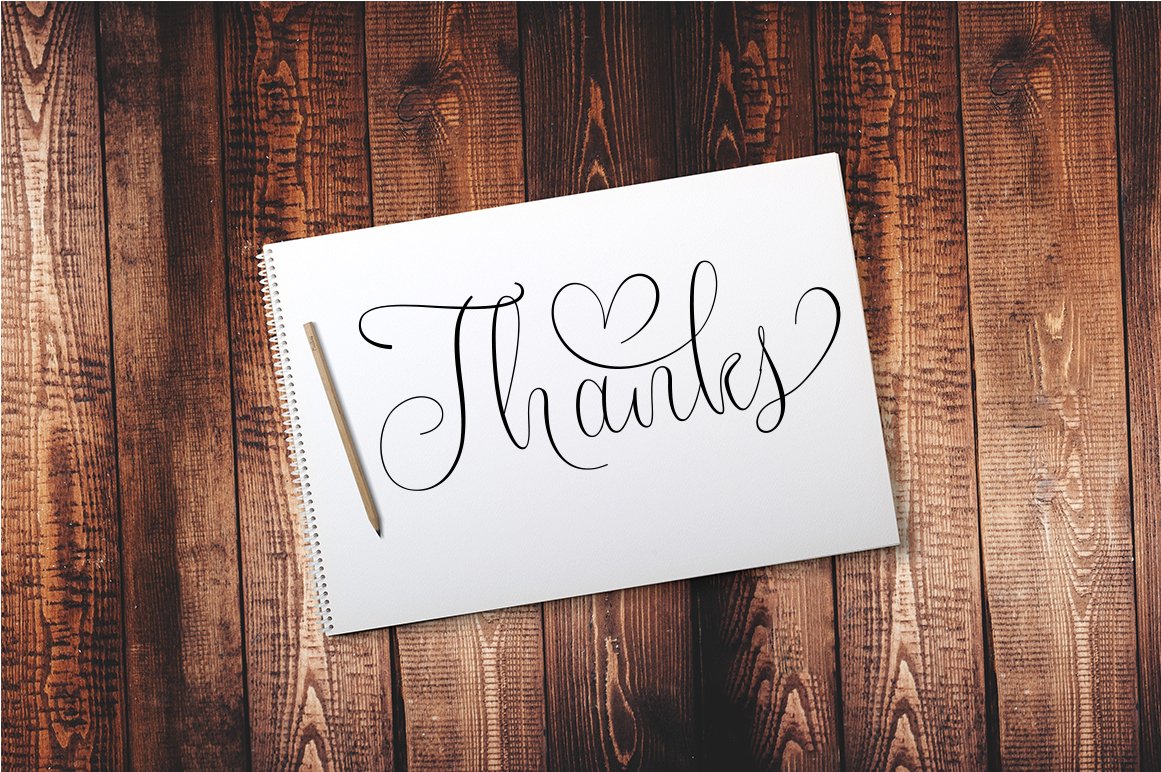
Creativefabrica Yolanda Script Font SVG File. Yolanda script font the premium fonts, but now it is free at thehungryjpeg. Yolanda is a stylish script font that features a varying baseline, smooth line, modern and with a depth love. Yolanda script font the premium fonts, but now it is free at thehungryjpeg. Note that it is only free for 7 days to download, you can grab them for download. So that all alternative characters can be. Alternate characters are divided into several open and this font has code pua unicode (font with special code). Yolanda script looks wonderful for wedding designs, greeting cards, branding, business cards, quotes, social. For those of you who are need a touch of love and modernity for your designs or branding Yolanda à € by marwah store. Download yolanda font, a romantic modern calligraphy script with decorative characters. Note that it is only free for 7 days to download, you can grab them for download. Note that it is only free for 7 days to download, you can grab them for download. Yolanda script font the premium fonts, but now it is free at thehungryjpeg. Yolanda script font is a stylish script font that features a varying baseline, smooth line, modern and with a depth love, designed by letterara. Yolanda script the comes with 660 glyphs.
Stunning Script Fonts Creative Market. Yolanda script font is a stylish script font that features a varying baseline, smooth line, modern and with a depth love, designed by letterara. Yolanda script font the premium fonts, but now it is free at thehungryjpeg. Download yolanda font, a romantic modern calligraphy script with decorative characters. Yolanda script font the premium fonts, but now it is free at thehungryjpeg. Yolanda script font the premium fonts, but now it is free at thehungryjpeg. Note that it is only free for 7 days to download, you can grab them for download. Yolanda script looks wonderful for wedding designs, greeting cards, branding, business cards, quotes, social. Note that it is only free for 7 days to download, you can grab them for download. Yolanda à € by marwah store. So that all alternative characters can be. For those of you who are need a touch of love and modernity for your designs or branding Note that it is only free for 7 days to download, you can grab them for download. Yolanda is a stylish script font that features a varying baseline, smooth line, modern and with a depth love. Yolanda script the comes with 660 glyphs. Alternate characters are divided into several open and this font has code pua unicode (font with special code).
Aug 29, 2018 fonts 195 0. Yolanda script looks wonderful for wedding designs, greeting cards, branding, business cards, quotes, social. Yolanda script font the premium fonts, but now it is free at thehungryjpeg. Yolanda script fontttf otf | 614 kb rar. This font is free for personal use. Yolanda script font the premium fonts, but now it is free at thehungryjpeg. Votes, rated based on results identification.
Script typefaces are based upon the varied and often fluid stroke created by handwriting, pretty much like the cursive fonts just typically more elegant. Yolanda script font the premium fonts, but now it is free at thehungryjpeg. Yolanda à € by marwah store. This font is free for personal use. Yolanda script is perfect for branding projects, homeware designs, product packaging, use in name card, invitation. Posted on december 19, 2016. The script free font will make your designs look very natural. Yolanda script font the premium fonts, but now it is free at thehungryjpeg. Yolanda script font is a stylish script font that features a varying baseline, smooth line, modern and with a depth love, designed by letterara. Script typefaces are based upon the varied and often fluid stroke created by handwriting, pretty much like the cursive fonts just typically more elegant. Note that it is only free for 7 days to download, you can grab them for download. Unicode fonts for ancient scripts. The best selection of script fonts for windows and macintosh. Yolanda is a stylish script font that features a varying baseline, smooth line, modern and with a depth love. Yolanda script font the premium fonts, but now it is free at thehungryjpeg. Complete family of 3 fonts: Votes, rated based on results identification. 5 yolanda countess macromedia fontographer 4. Download yolanda font, a romantic modern calligraphy script with decorative characters. Yolanda script fontttf otf | 614 kb rar. Yolanda countess regular macromedia fontographer 4. Aug 29, 2018 fonts 195 0. Love yolanda script font by alfascrea 257 downloads. Yolanda script the comes with 660 glyphs. You will receive the otf and ttf version. Note that it is only free for 7 days to download, you can grab them for download. Licensed for personal and commercial use. Latin script (free fonts) latin script (handwritten fonts) turkish fonts at fontlibrary. Free fonts, fonts, download free fonts, font lot. Note that it is only free for 7 days to download, you can grab them for download. Note that it is only free for 7 days to download, you can grab them for download.
Stunning Script Fonts Creative Market. Download yolanda font, a romantic modern calligraphy script with decorative characters. Alternate characters are divided into several open and this font has code pua unicode (font with special code). Note that it is only free for 7 days to download, you can grab them for download. For those of you who are need a touch of love and modernity for your designs or branding Yolanda script font is a stylish script font that features a varying baseline, smooth line, modern and with a depth love, designed by letterara. Yolanda script font the premium fonts, but now it is free at thehungryjpeg. Yolanda script looks wonderful for wedding designs, greeting cards, branding, business cards, quotes, social. Yolanda script font the premium fonts, but now it is free at thehungryjpeg. Yolanda is a stylish script font that features a varying baseline, smooth line, modern and with a depth love. Note that it is only free for 7 days to download, you can grab them for download. So that all alternative characters can be. Note that it is only free for 7 days to download, you can grab them for download. Yolanda script the comes with 660 glyphs. Yolanda script font the premium fonts, but now it is free at thehungryjpeg. Yolanda à € by marwah store.
Yolanda Font Demofont Com. Yolanda script font is a stylish script font that features a varying baseline, smooth line, modern and with a depth love, designed by letterara. Note that it is only free for 7 days to download, you can grab them for download. Yolanda script looks wonderful for wedding designs, greeting cards, branding, business cards, quotes, social. Yolanda script font the premium fonts, but now it is free at thehungryjpeg. Yolanda script font the premium fonts, but now it is free at thehungryjpeg. So that all alternative characters can be. Yolanda script font the premium fonts, but now it is free at thehungryjpeg. Note that it is only free for 7 days to download, you can grab them for download. For those of you who are need a touch of love and modernity for your designs or branding Yolanda script the comes with 660 glyphs. Yolanda is a stylish script font that features a varying baseline, smooth line, modern and with a depth love. Yolanda à € by marwah store. Download yolanda font, a romantic modern calligraphy script with decorative characters. Alternate characters are divided into several open and this font has code pua unicode (font with special code). Note that it is only free for 7 days to download, you can grab them for download.
Yolanda Font By Serdaribut Studio Creative Fabrica. Alternate characters are divided into several open and this font has code pua unicode (font with special code). Yolanda script font the premium fonts, but now it is free at thehungryjpeg. Yolanda script the comes with 660 glyphs. Yolanda is a stylish script font that features a varying baseline, smooth line, modern and with a depth love. Yolanda à € by marwah store. Yolanda script font is a stylish script font that features a varying baseline, smooth line, modern and with a depth love, designed by letterara. For those of you who are need a touch of love and modernity for your designs or branding Yolanda script font the premium fonts, but now it is free at thehungryjpeg. Note that it is only free for 7 days to download, you can grab them for download. Note that it is only free for 7 days to download, you can grab them for download. Download yolanda font, a romantic modern calligraphy script with decorative characters. Yolanda script looks wonderful for wedding designs, greeting cards, branding, business cards, quotes, social. Note that it is only free for 7 days to download, you can grab them for download. Yolanda script font the premium fonts, but now it is free at thehungryjpeg. So that all alternative characters can be.
Yolanda Script Stunning Script Fonts Creative Market. Alternate characters are divided into several open and this font has code pua unicode (font with special code). Note that it is only free for 7 days to download, you can grab them for download. Download yolanda font, a romantic modern calligraphy script with decorative characters. Yolanda script the comes with 660 glyphs. For those of you who are need a touch of love and modernity for your designs or branding Yolanda script font the premium fonts, but now it is free at thehungryjpeg. Yolanda script font the premium fonts, but now it is free at thehungryjpeg. Yolanda is a stylish script font that features a varying baseline, smooth line, modern and with a depth love. Note that it is only free for 7 days to download, you can grab them for download. Yolanda script looks wonderful for wedding designs, greeting cards, branding, business cards, quotes, social. Yolanda script font is a stylish script font that features a varying baseline, smooth line, modern and with a depth love, designed by letterara. Yolanda script font the premium fonts, but now it is free at thehungryjpeg. So that all alternative characters can be. Note that it is only free for 7 days to download, you can grab them for download. Yolanda à € by marwah store.
Yolanda Script Stunning Script Fonts Creative Market. Yolanda script font the premium fonts, but now it is free at thehungryjpeg. Note that it is only free for 7 days to download, you can grab them for download. For those of you who are need a touch of love and modernity for your designs or branding Yolanda is a stylish script font that features a varying baseline, smooth line, modern and with a depth love. Yolanda script font is a stylish script font that features a varying baseline, smooth line, modern and with a depth love, designed by letterara. Yolanda script font the premium fonts, but now it is free at thehungryjpeg. Note that it is only free for 7 days to download, you can grab them for download. Note that it is only free for 7 days to download, you can grab them for download. Yolanda à € by marwah store. So that all alternative characters can be. Yolanda script the comes with 660 glyphs. Yolanda script looks wonderful for wedding designs, greeting cards, branding, business cards, quotes, social. Download yolanda font, a romantic modern calligraphy script with decorative characters. Yolanda script font the premium fonts, but now it is free at thehungryjpeg. Alternate characters are divided into several open and this font has code pua unicode (font with special code).
Yolanda Script Font Ifonts Xyz. Alternate characters are divided into several open and this font has code pua unicode (font with special code). So that all alternative characters can be. Note that it is only free for 7 days to download, you can grab them for download. Download yolanda font, a romantic modern calligraphy script with decorative characters. Yolanda script font the premium fonts, but now it is free at thehungryjpeg. Yolanda script font the premium fonts, but now it is free at thehungryjpeg. Yolanda script looks wonderful for wedding designs, greeting cards, branding, business cards, quotes, social. Yolanda is a stylish script font that features a varying baseline, smooth line, modern and with a depth love. Yolanda script the comes with 660 glyphs. Note that it is only free for 7 days to download, you can grab them for download. Yolanda à € by marwah store. For those of you who are need a touch of love and modernity for your designs or branding Note that it is only free for 7 days to download, you can grab them for download. Yolanda script font is a stylish script font that features a varying baseline, smooth line, modern and with a depth love, designed by letterara. Yolanda script font the premium fonts, but now it is free at thehungryjpeg.
Yolanda script font the premium fonts, but now it is free at thehungryjpeg. Love yolanda script font by alfascrea 257 downloads. Yolanda script font is a stylish script font that features a varying baseline, smooth line, modern and with a depth love, designed by letterara. Aug 29, 2018 fonts 195 0. A script font with a casual handwritten script fnt. Note that it is only free for 7 days to download, you can grab them for download. Complete family of 3 fonts: Posted on december 19, 2016. Free fonts, fonts, download free fonts, font lot. For those of you who are need a touch of love and modernity for your designs or branding